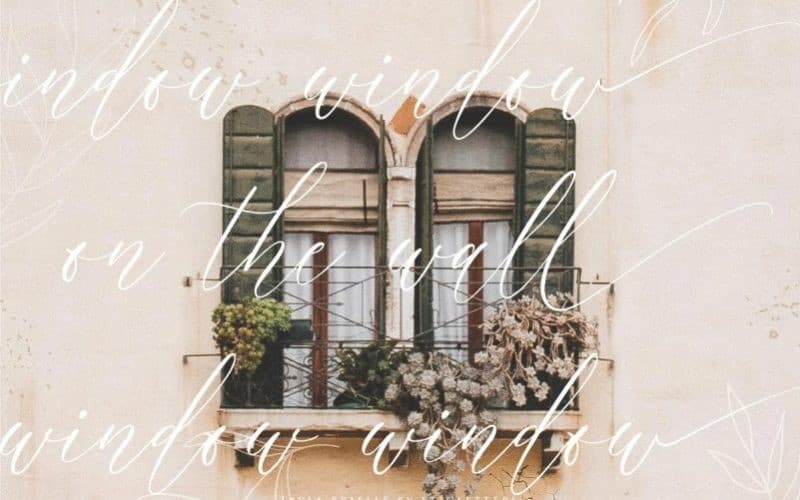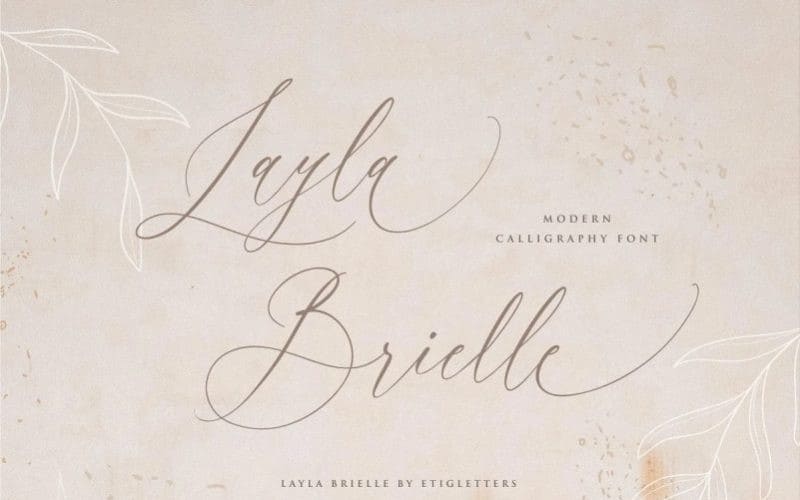
Layla Brielle Calligraphy Font
Layla Brielle Calligraphy Font, designed by etigletters is an elegant script font, that features a very delicate and classy look. It’s perfect for wedding cards, wedding invitations, personal branding and many more!
Layla Brielle includes full set of uppercase and lowercase letters, numerals, and including ligatures even multilingual support. All lowercase letters include beginning and ending swashes with realistic handwritten style.